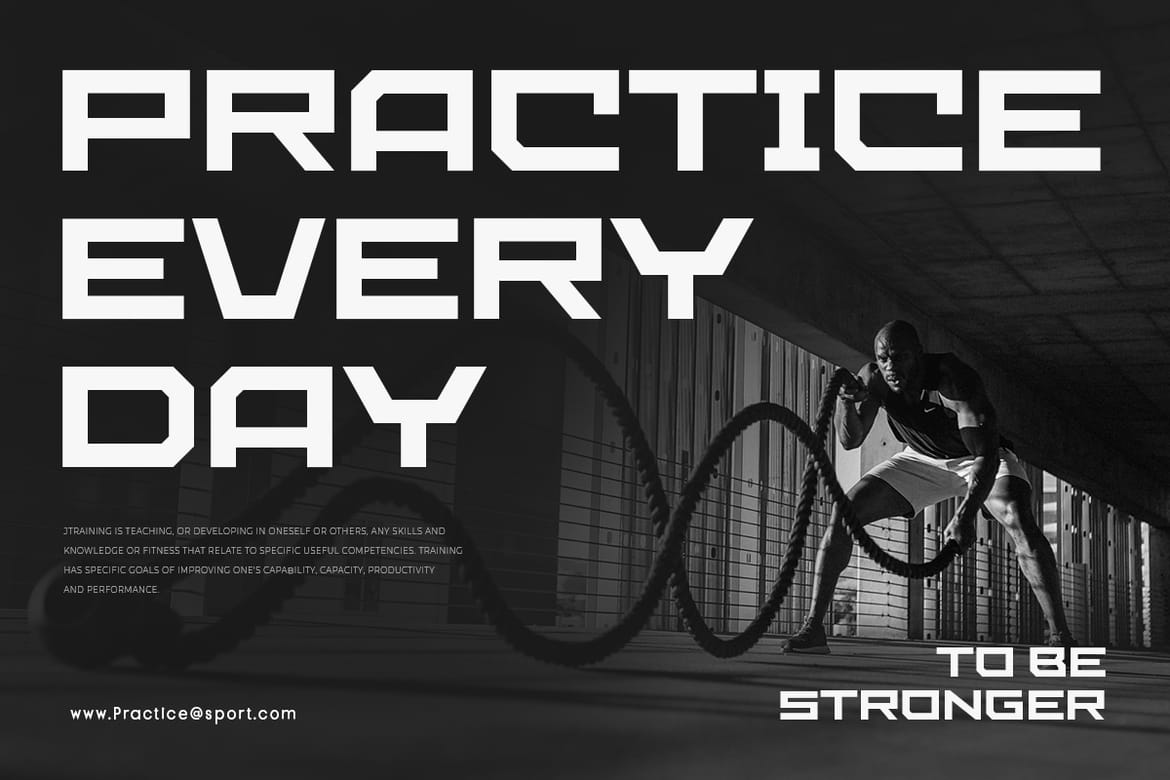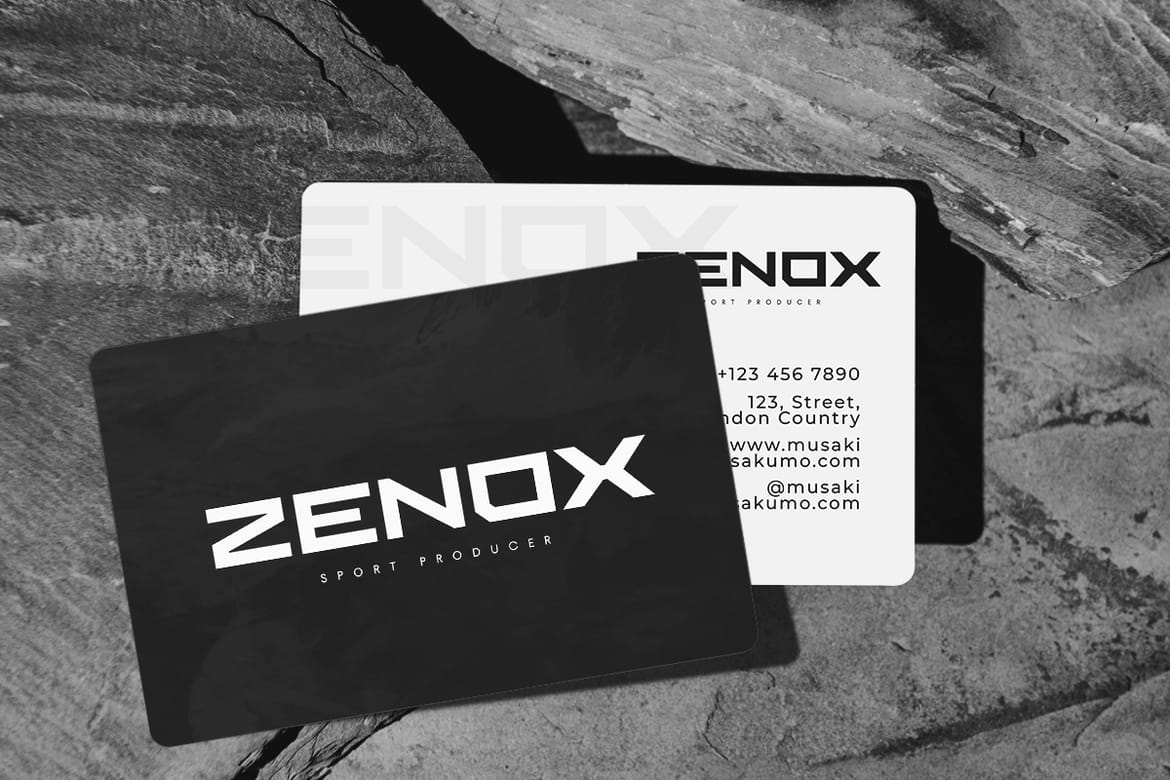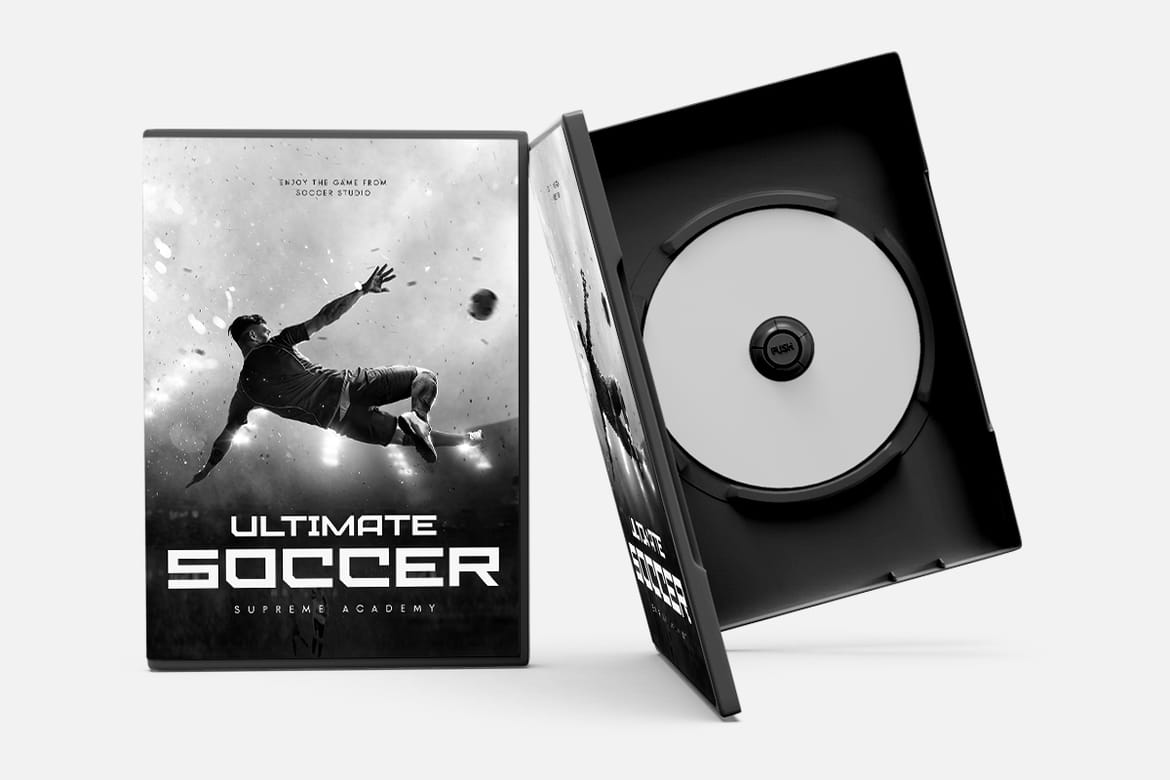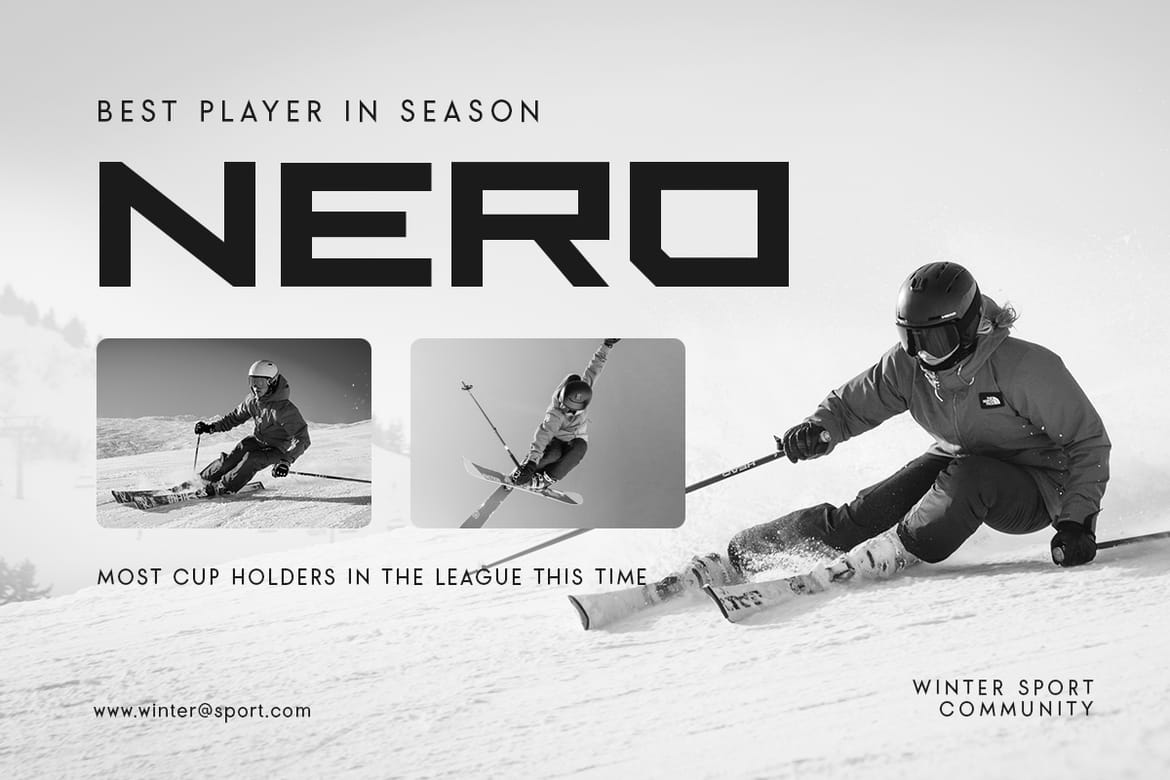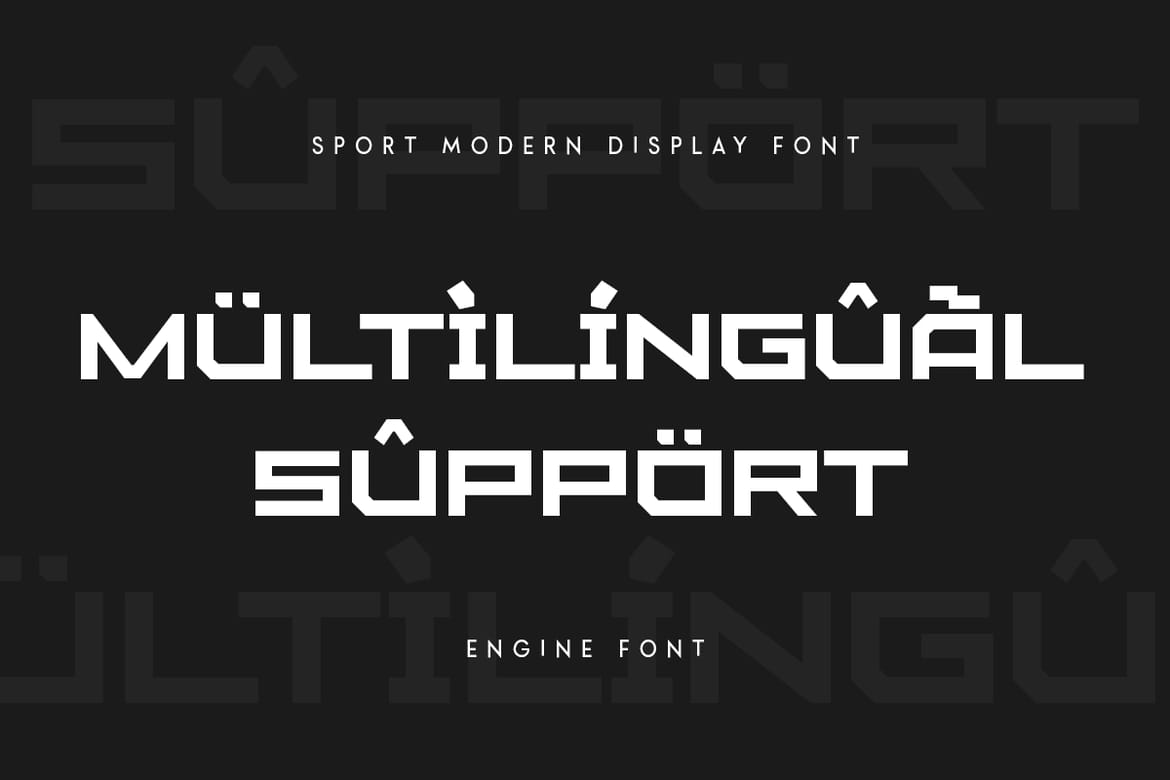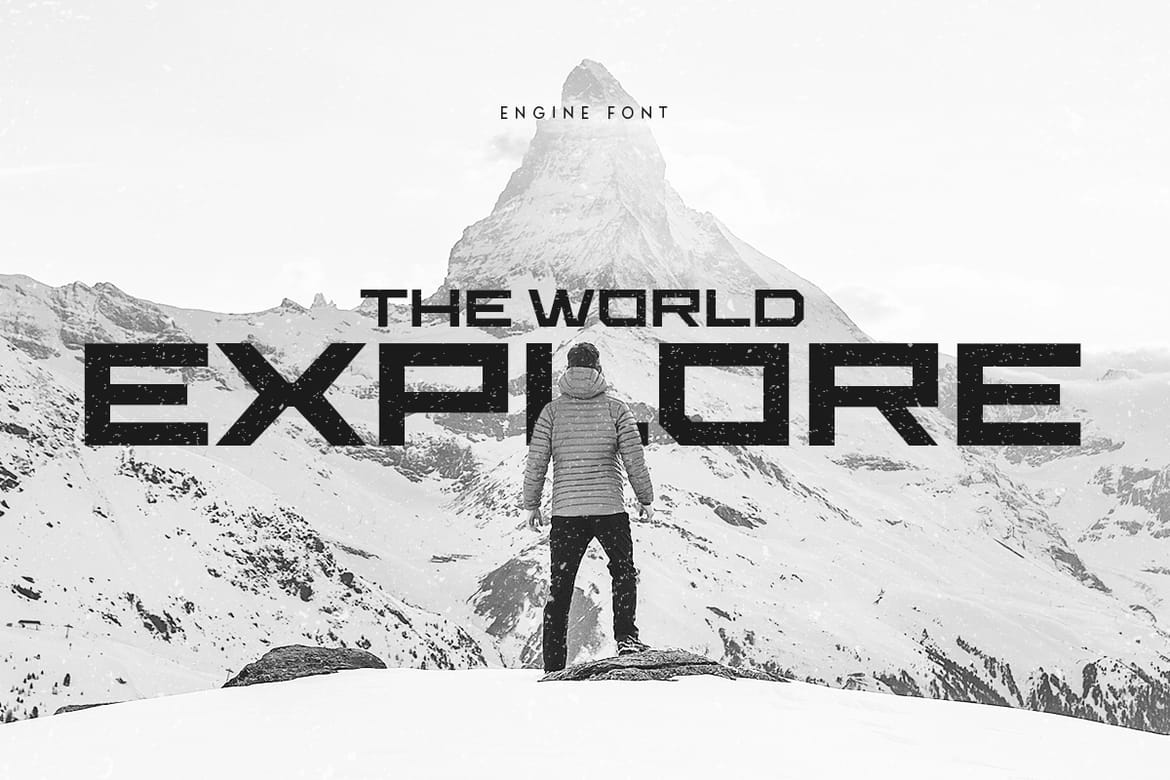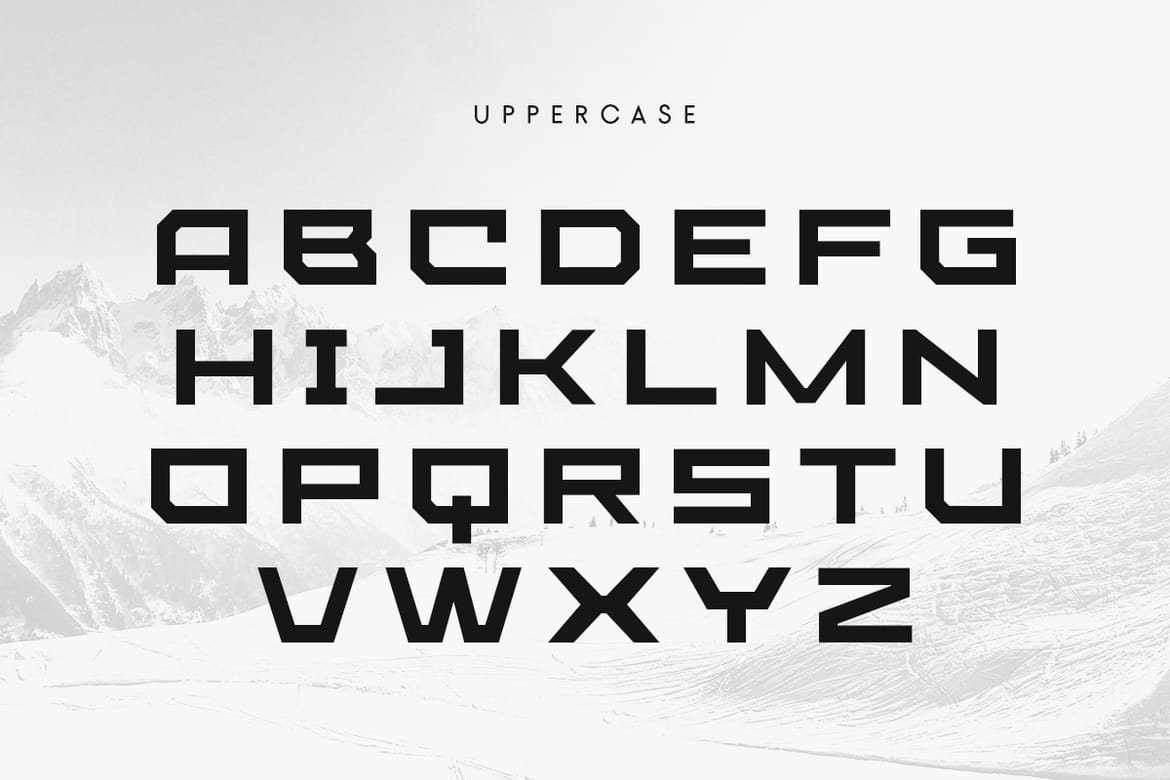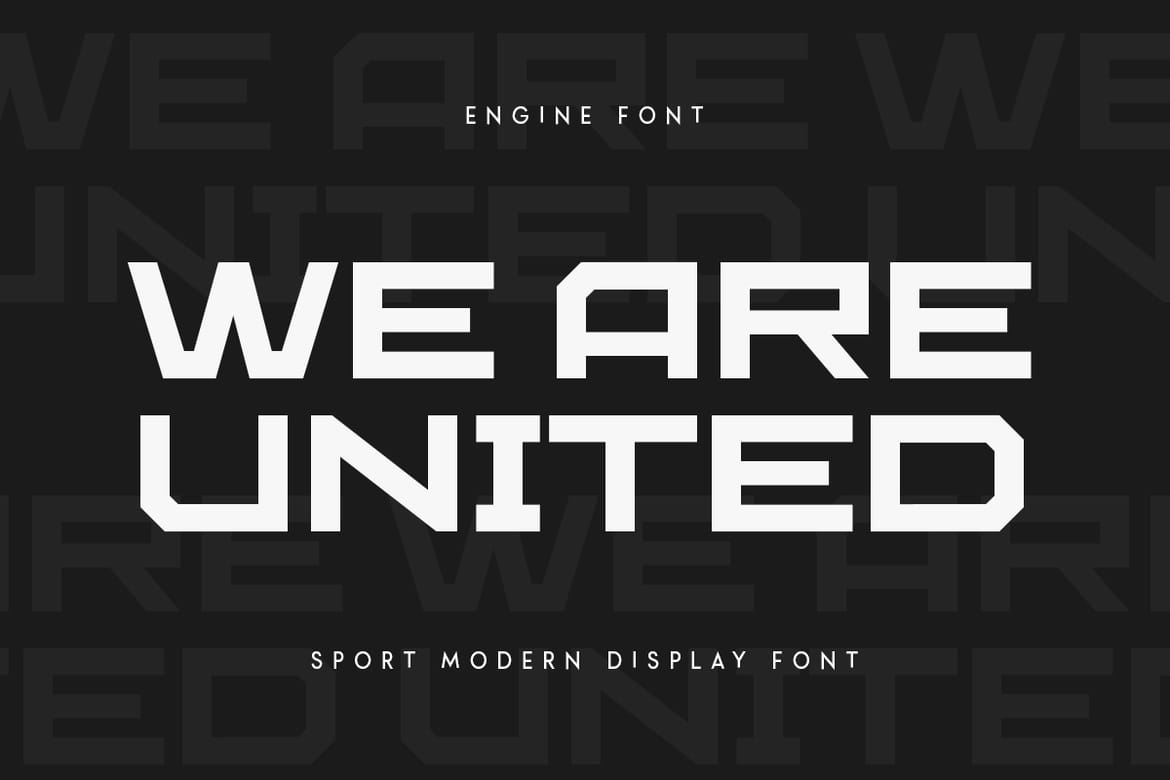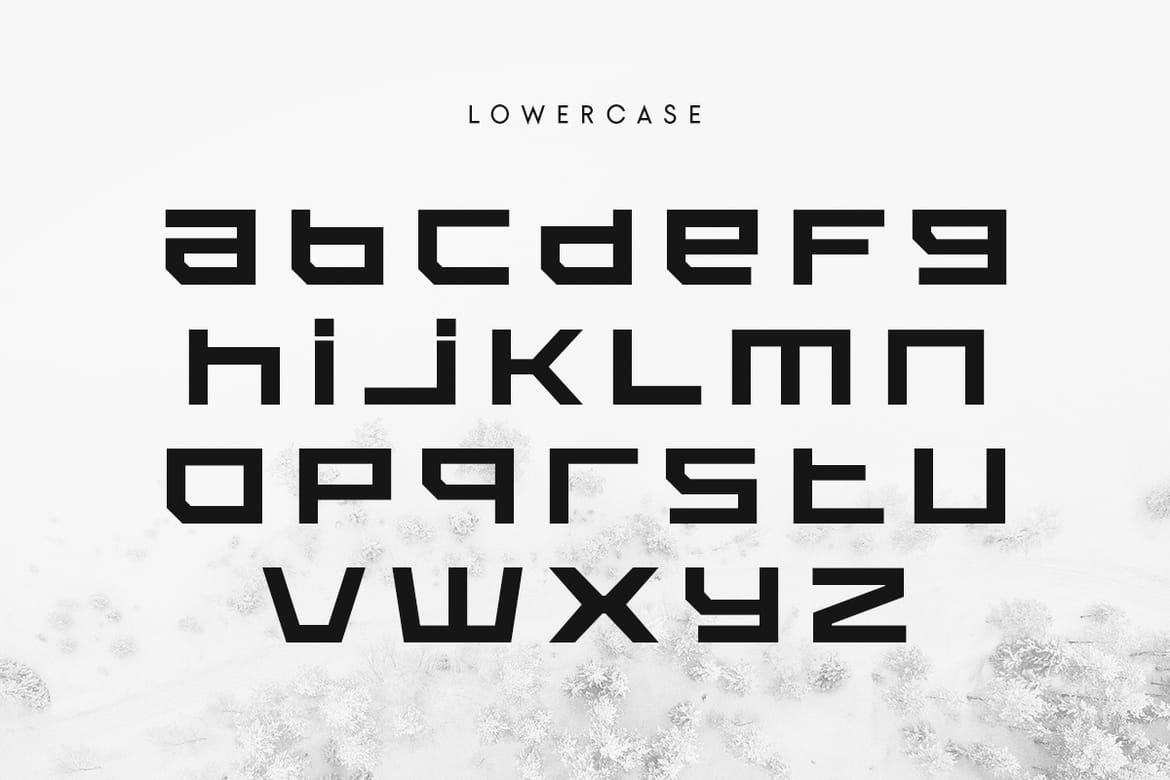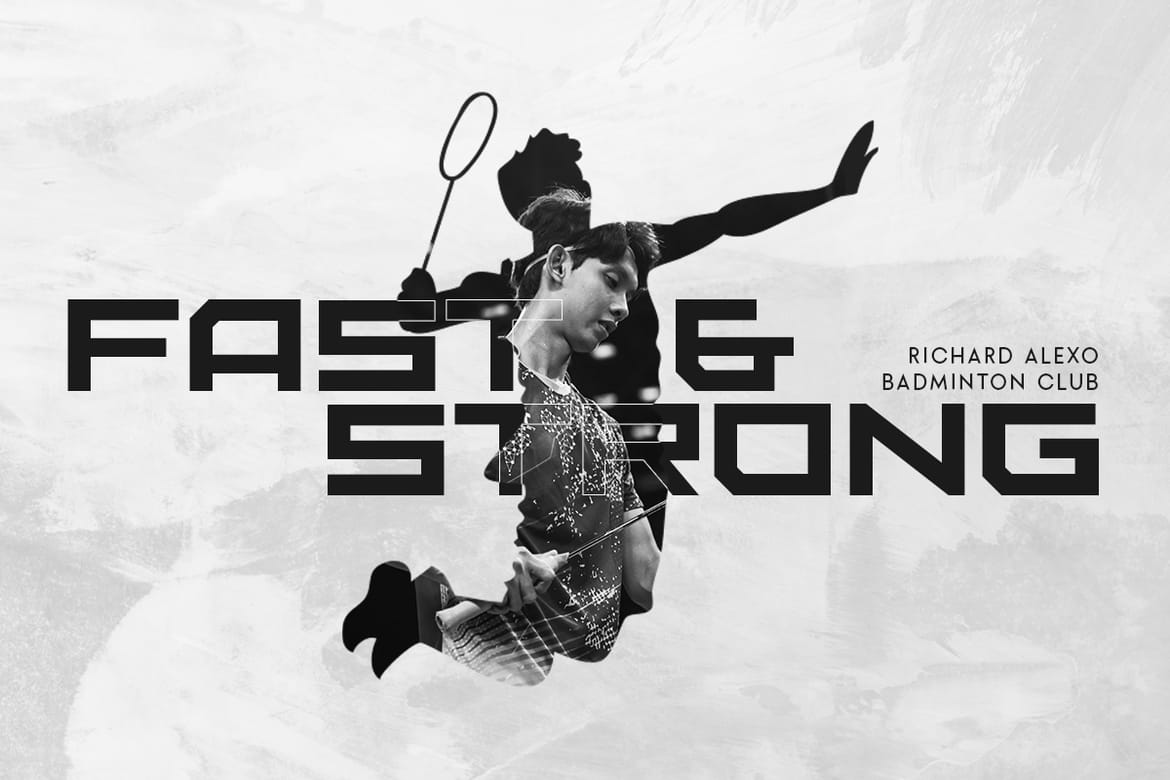
Engine - Sport Modern Font
A Modern Sport font are prepared special for racing, motor, adventure, and speed design needs. Created special for sport logo and more stand out typography needs. It's so perfect to add your style and headline overview with extra alternatives. We crafted for racing style and modern feel so enjoy to create any project with unique character.
• Sport racing font
• Motor and speed design
• Adventure sports logo